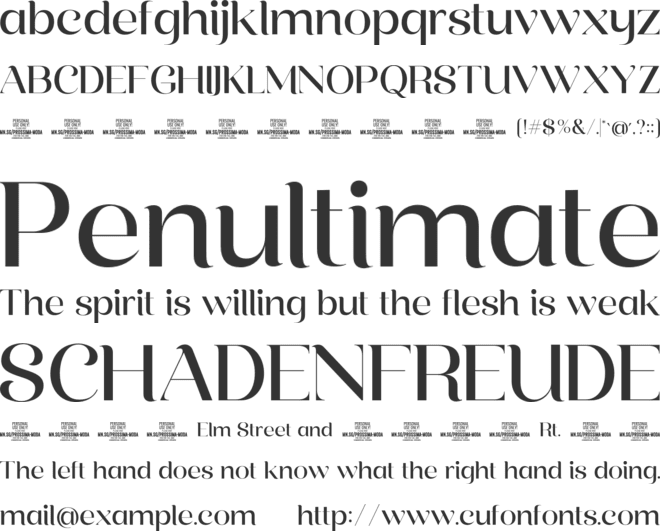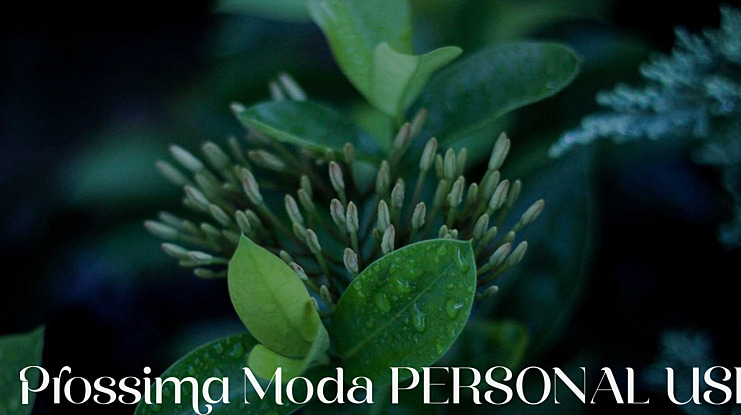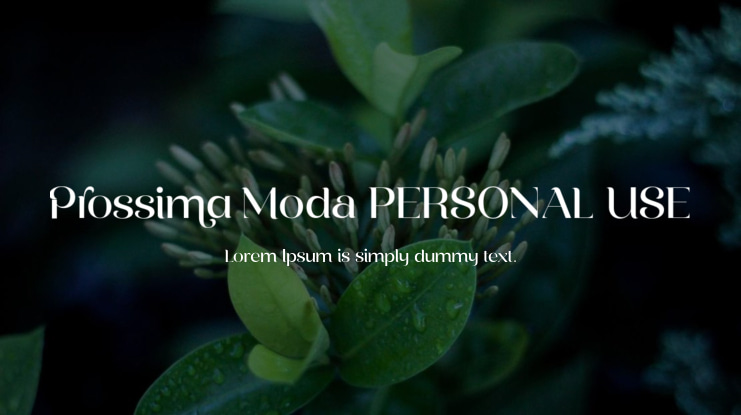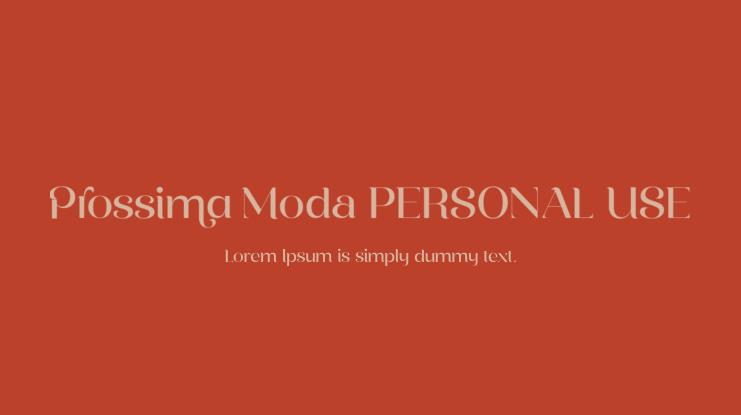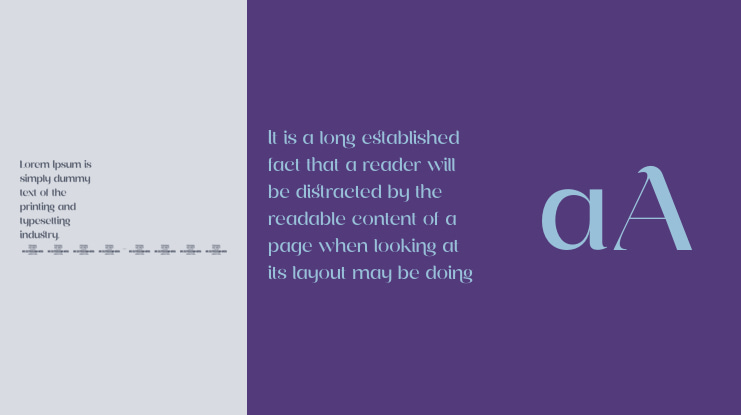
Prossima Moda PERSONAL USE Font Family
Prossima Moda is a font that embodies modernity and a fashion-forward style. Its sleek and contemporary design exudes sophistication and elegance, while its contrasting lines add visual interest and intrigue.